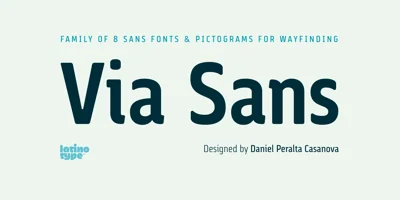
Via Sans Font
Via Sans Font is perfect for modern web interfaces, clean corporate branding, minimalist app designs, editorial layouts, contemporary signage systems, tech startup materials, user interface typography, and sophisticated marketing campaigns that require clarity and modern aesthetic appeal.
Via Sans Font is exciting because it represents the evolution of sans-serif typography with its perfectly balanced letterforms that achieve both exceptional readability and contemporary style. The font's clean geometry and subtle humanist touches create a versatile typeface that feels both professional and approachable, making it ideal for digital-first brands and modern communication needs.
The Via Sans Font family includes comprehensive weight options: Thin, Extra Light, Light, Regular, Medium, Semi Bold, Bold, Extra Bold, and Black, plus matching italic versions. Each weight maintains the font's signature clarity and modern appeal while providing designers with extensive flexibility for creating sophisticated typographic hierarchies across all media.
This versatile typeface defines modern typography standards for contemporary design applications. Whether you're developing digital interfaces, creating brand identities, or designing editorial content, Via Sans Font delivers exceptional performance and visual appeal across all platforms and media. The font's meticulously engineered letterforms ensure optimal legibility at any size while maintaining distinctive character that sets brands apart. Designers appreciate its neutral yet distinctive personality that works seamlessly across diverse industries and applications. The extensive character set includes multilingual support and advanced OpenType features that enhance typographic possibilities. With its clean aesthetic and technical excellence, Via Sans Font transforms any project into a statement of modern professionalism and design sophistication, making it the perfect choice for forward-thinking brands that value both functionality and contemporary visual appeal in today's digital landscape.